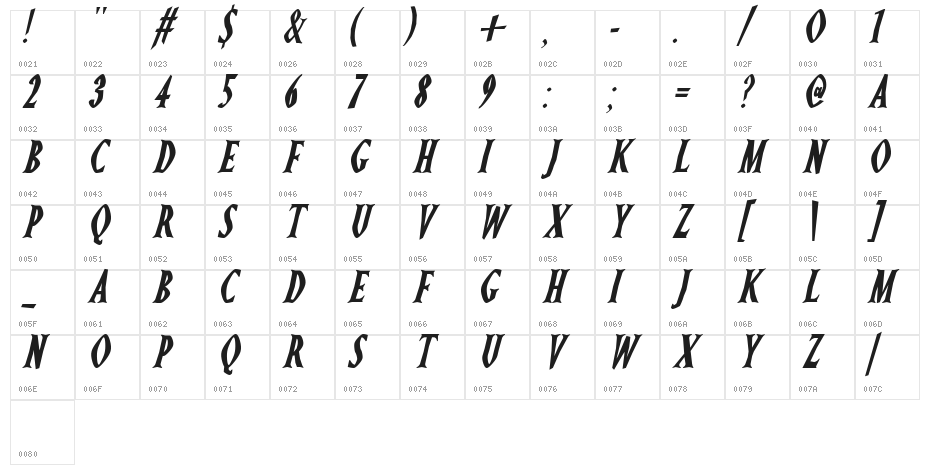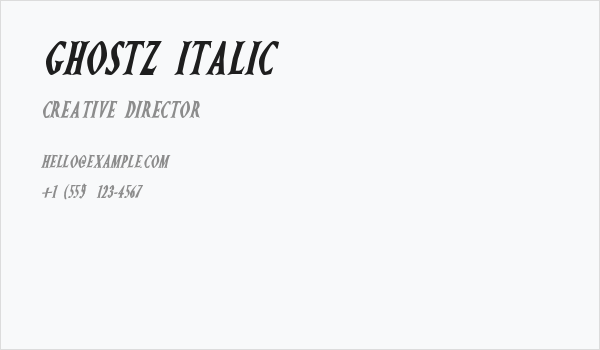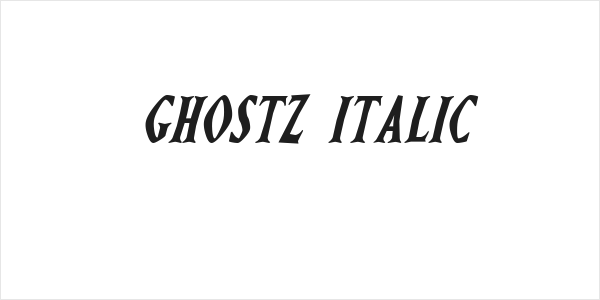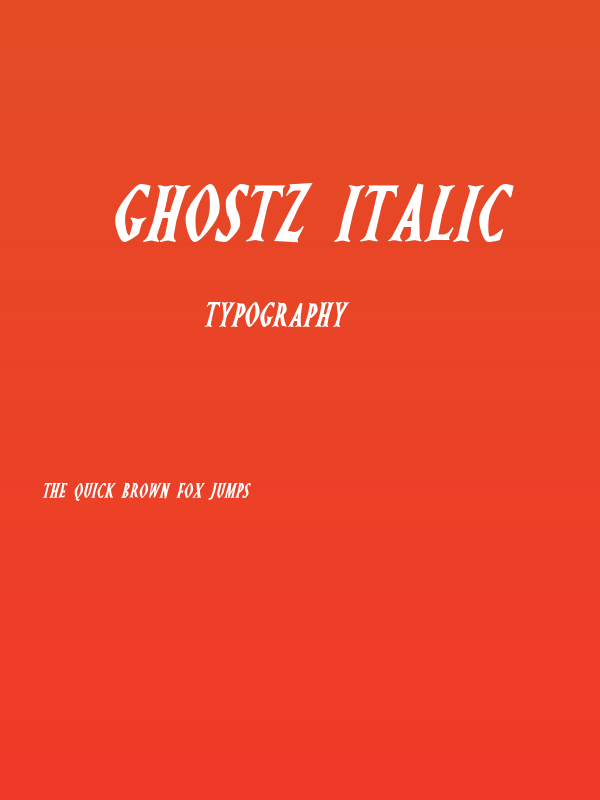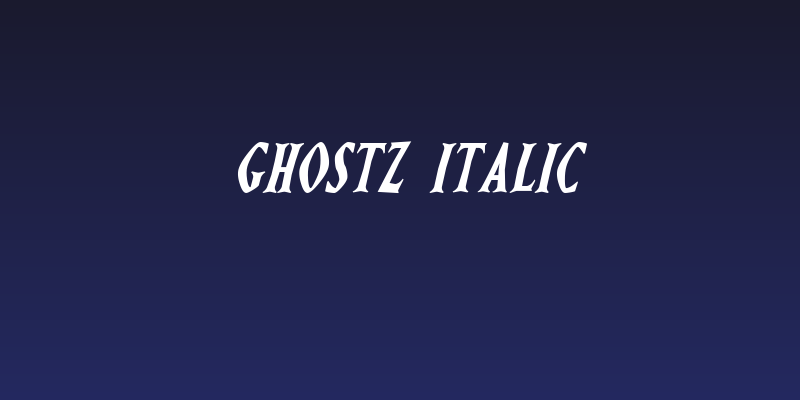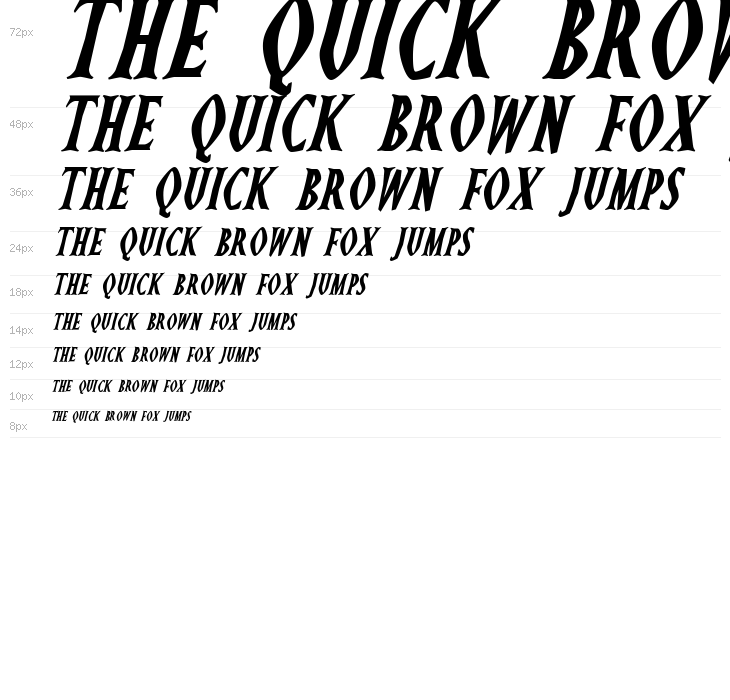
Ghostz Italic Font
Ghostz Italic Description
This font features a bold and dynamic style with a distinct italic slant, giving it a sense of motion and energy. The characters are sharply defined with high contrast between thick and thin strokes, creating a dramatic and eye-catching appearance. The uppercase letters are particularly striking, with elongated forms and pointed serifs that add to the font's aggressive and bold character. The numbers and special characters maintain the same level of intensity, making them suitable for impactful designs. Overall, this font exudes a sense of power and urgency, making it ideal for projects that require a strong visual presence.
| Proposed Projects | Ideal for posters, logos, headlines, and branding materials that require a bold and striking visual impact. |